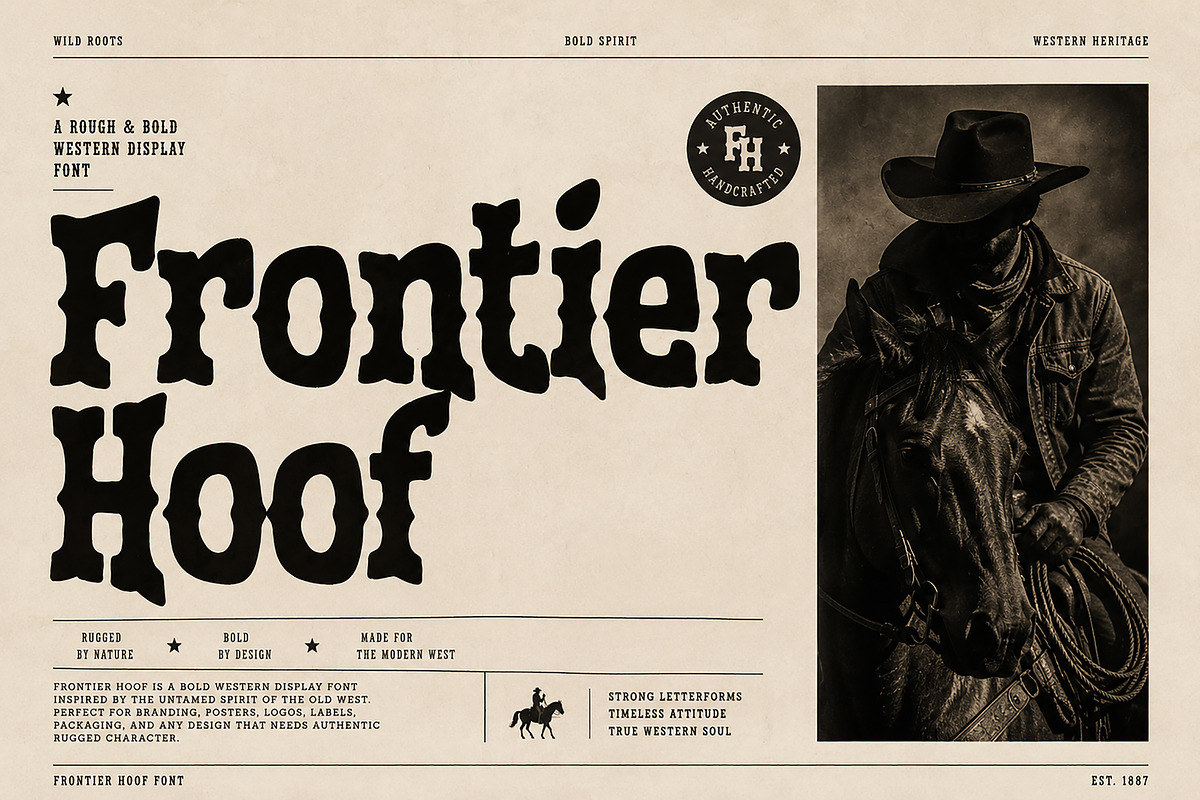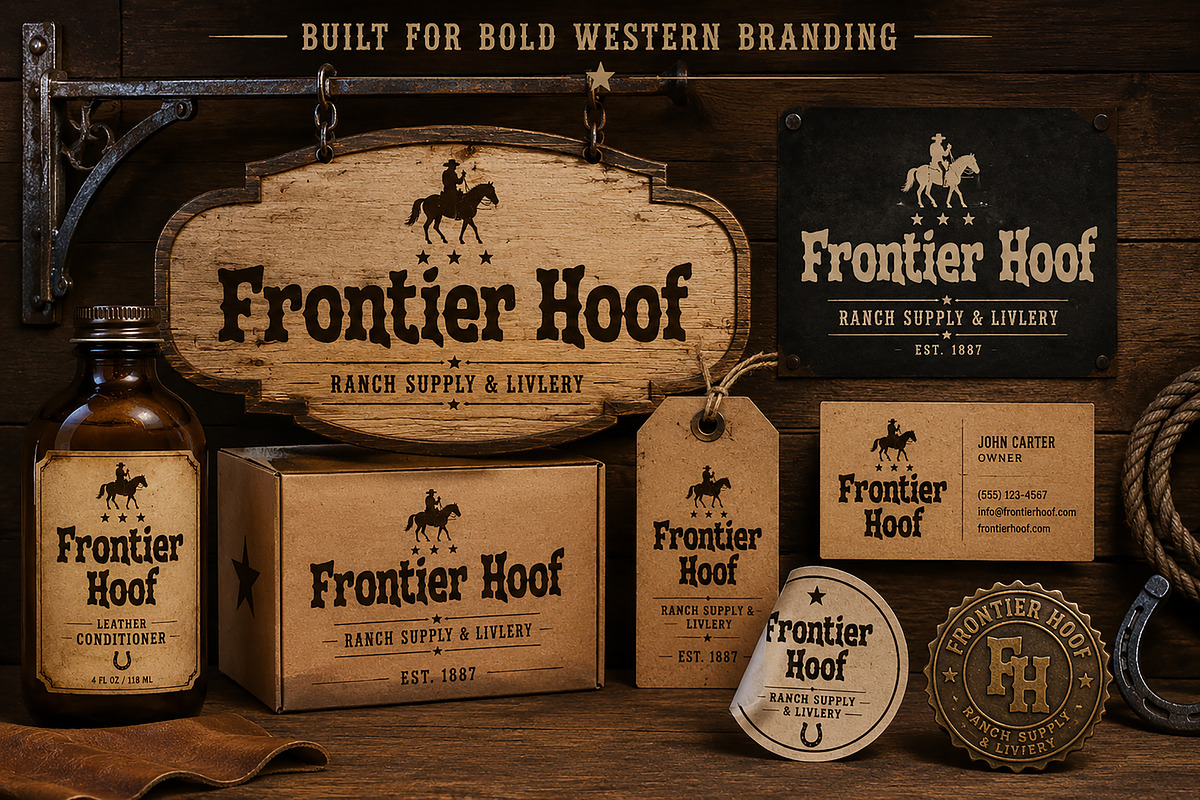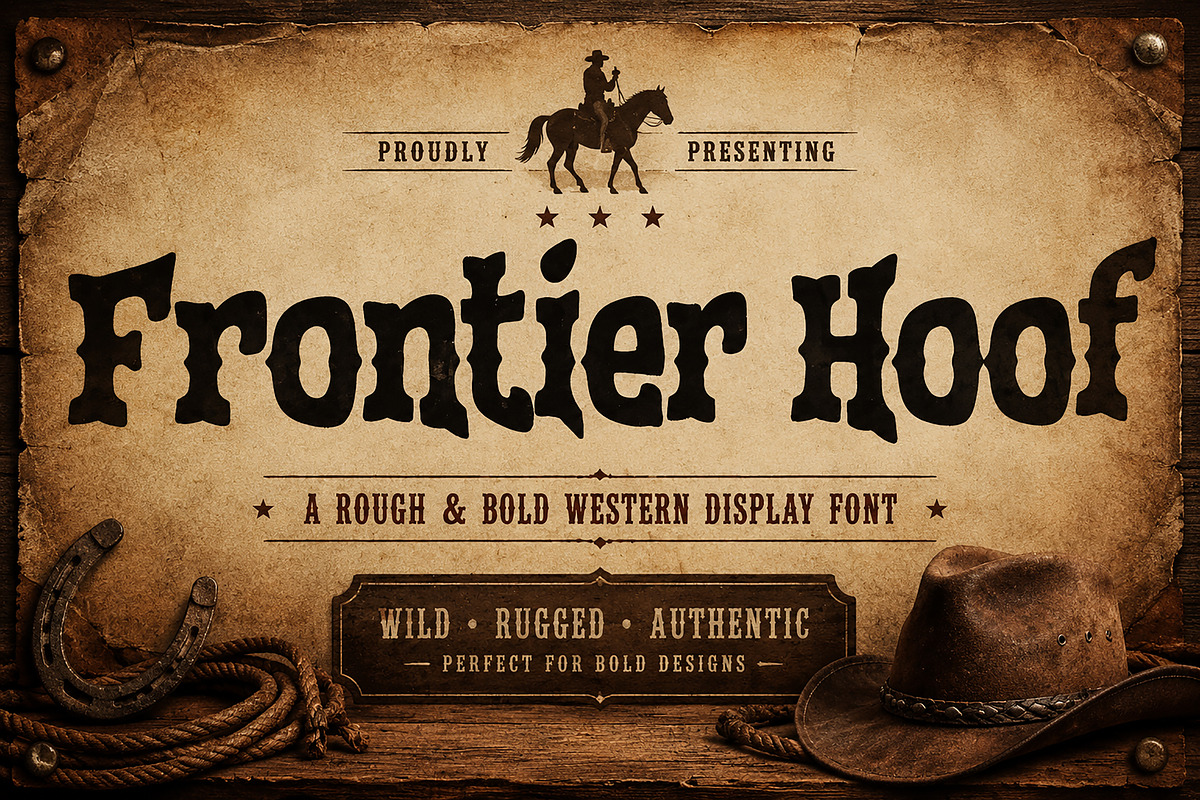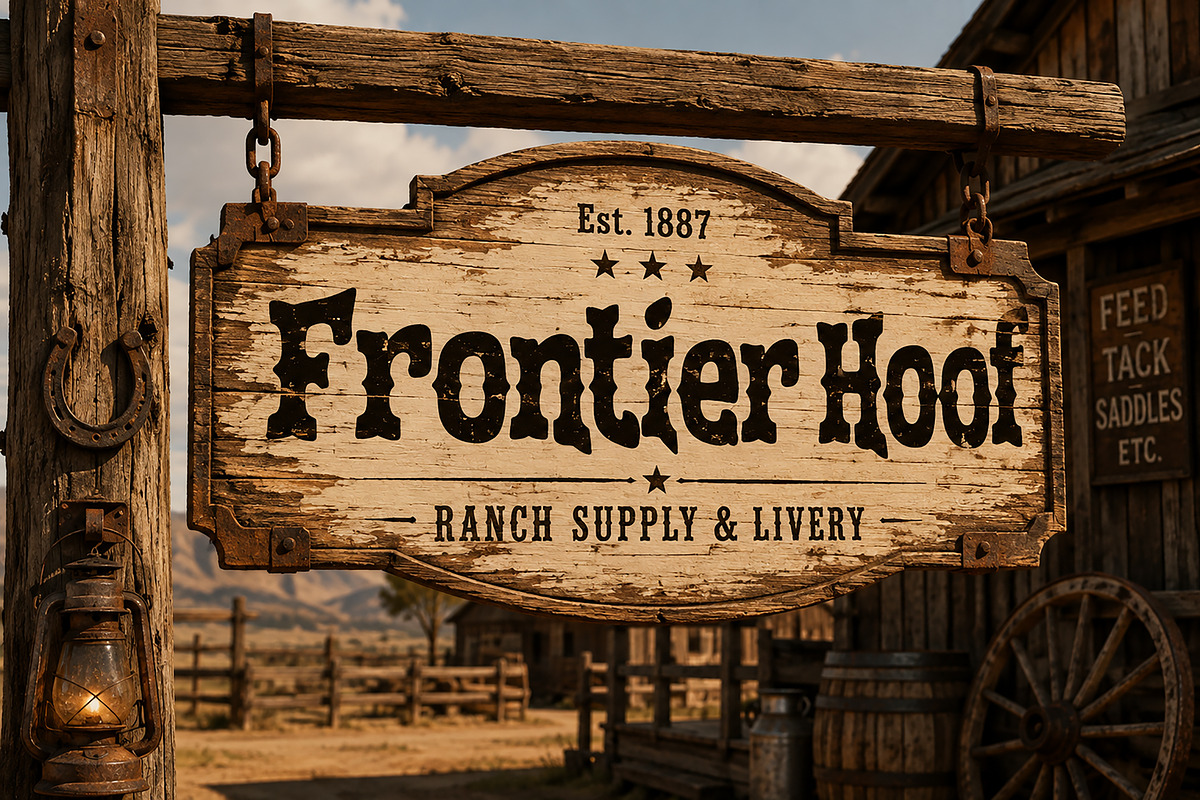
Frontier Hoof
Frontier Hoof is a bold and rugged Western display font inspired by the raw spirit of the Old West, frontier culture, ranch signage, vintage Americana, and handcrafted typography.
With its distinctive irregular letterforms and strong vintage character, Frontier Hoof is designed to make headlines, logos, posters, labels, packaging, and branding stand out with an authentic Western attitude.
Its bold presence works especially well for Western branding, cowboy-themed designs, ranch projects, apparel, badges, signage, posters, packaging, logos, labels, merchandise, and editorial artwork.
Whether you're creating a rustic ranch identity, an old-school Western poster, a vintage apparel collection, or a bold product label, Frontier Hoof brings a unique handcrafted frontier feel to your designs.
Western & Cowboy Branding
Ranch & Farm Logos
Vintage Posters
Western Signage
Apparel & T-Shirt Designs
Labels & Badges
Logos & Brand Identity
Stickers & Merchandise
Editorial & Poster Design
Rustic Americana Projects
Saloon & Bar Branding
Outdoor & Adventure Designs
Style: Western Display / Vintage / Rustic / Distressed
Bring a bold frontier spirit to your next creative project with Frontier Hoof.